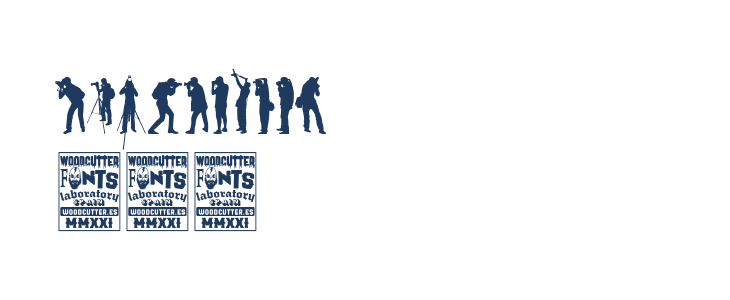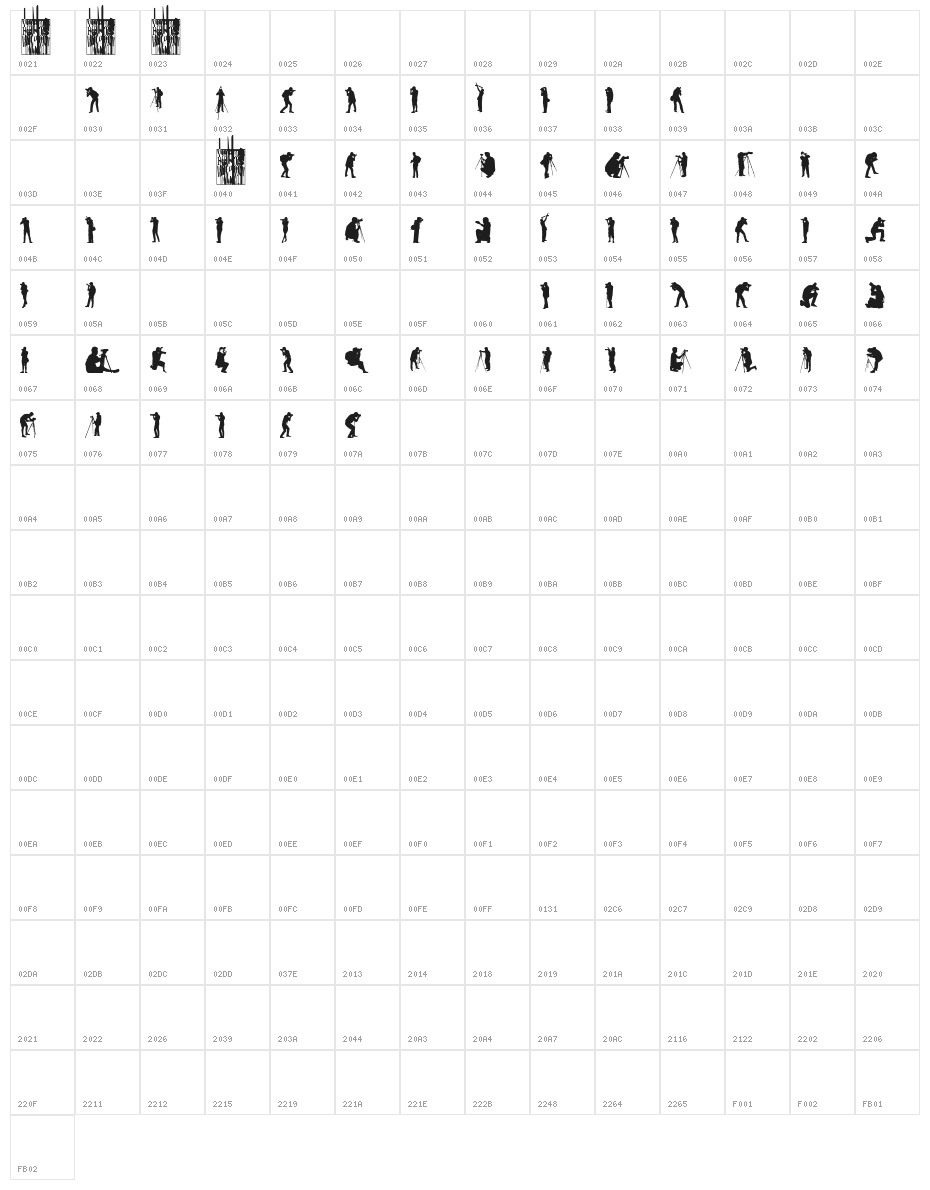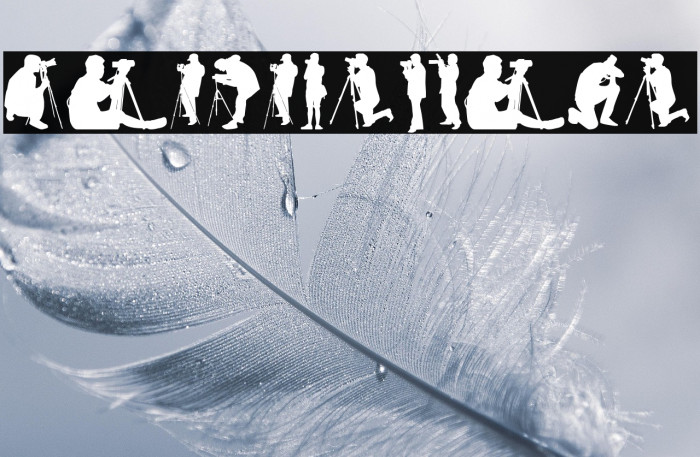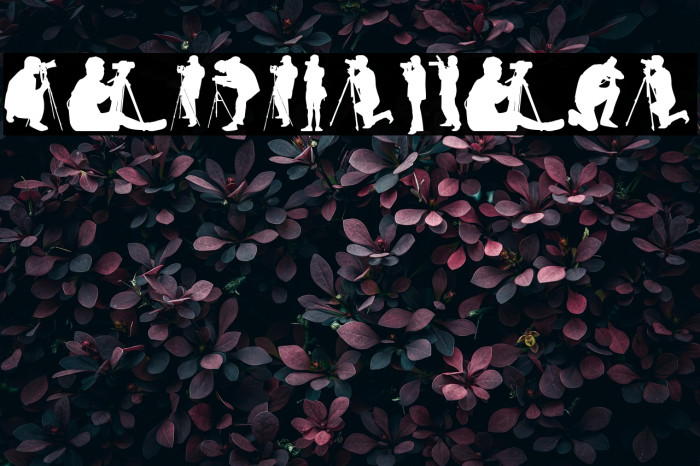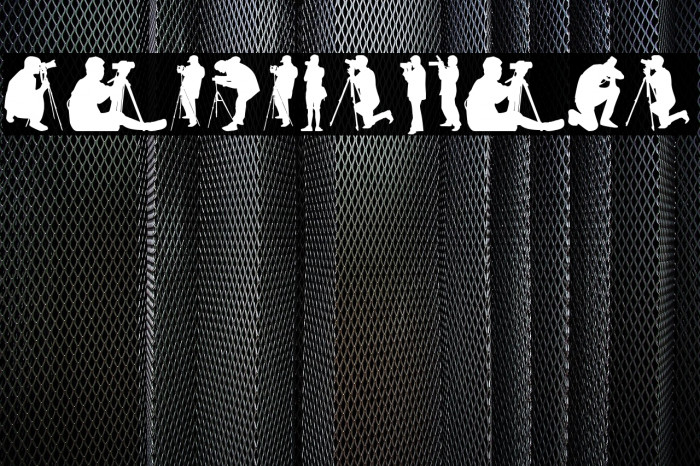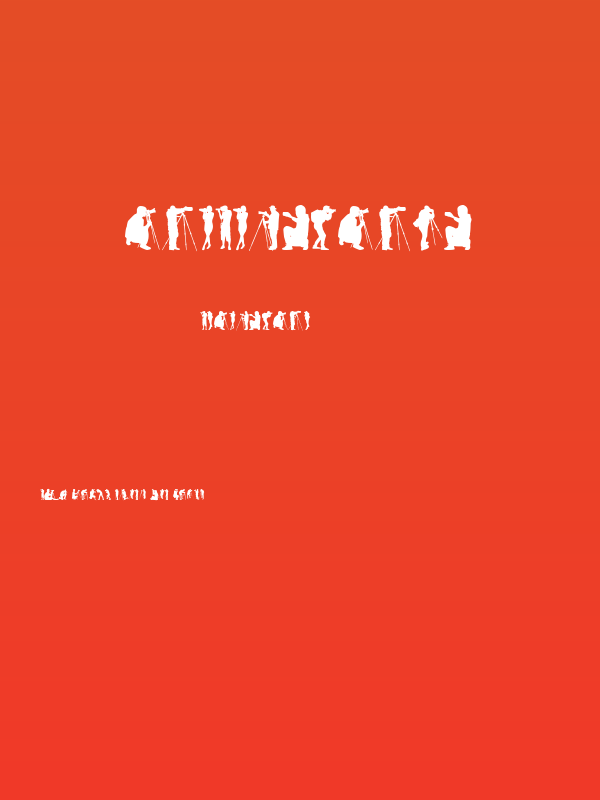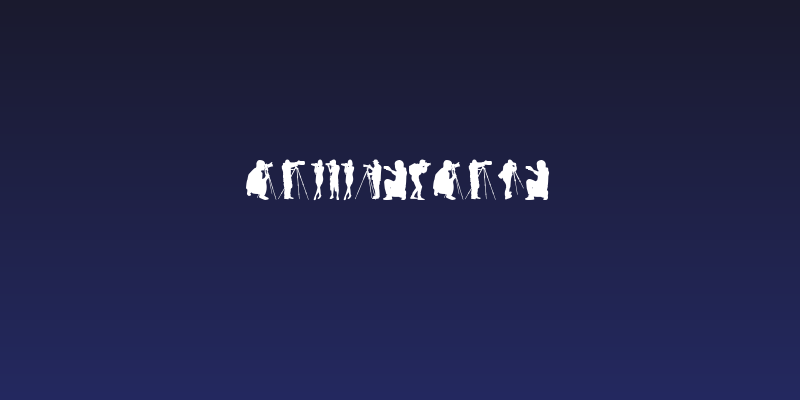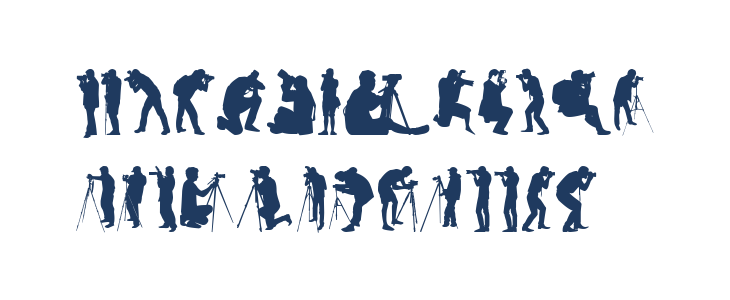
Photographer Font
Photographer Description
A decorative display font composed of solid black silhouettes of photographers in various poses, including standing, crouching, and using tripods, creating a playful and thematic visual style.
| Overall Style | Decorative, Playful, Thematic |
| Use Case | Logos, Posters, Headlines, Themed Graphics |
| Proposed Projects | Photography event posters, creative branding for photo studios, themed invitations, visual storytelling projects. |